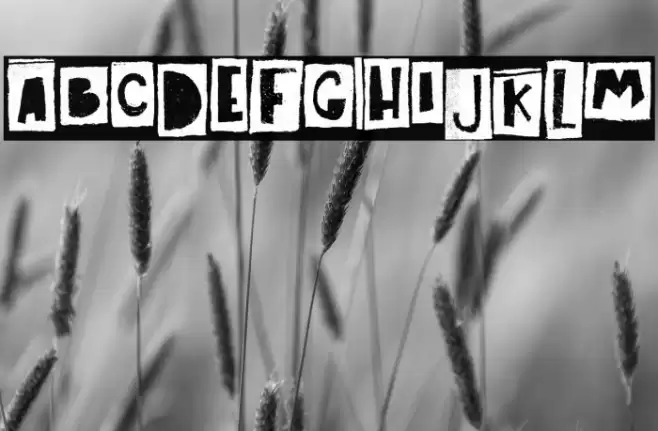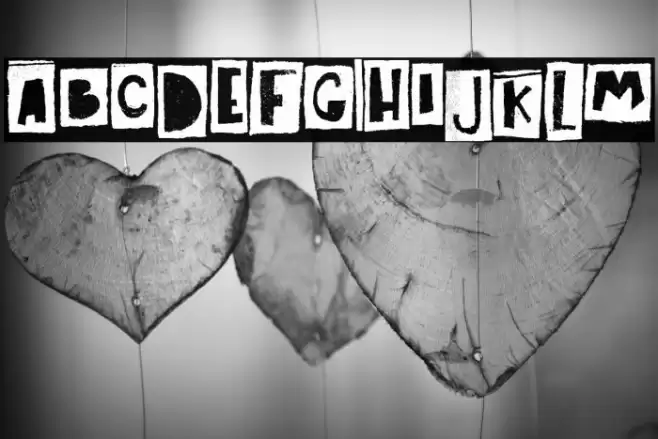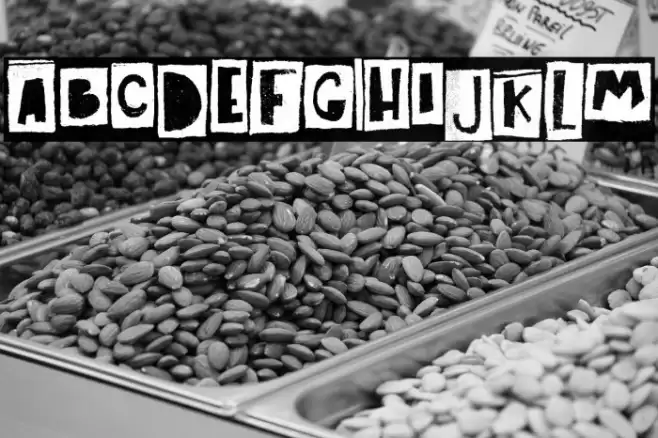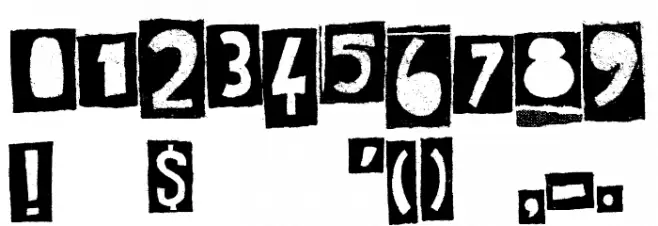
Art Post Font
Art Post Description
This font features a bold, distressed style with a hand-crafted appearance. Each character is enclosed in a rough, uneven block, giving it a unique, cut-out look reminiscent of vintage ransom notes or DIY zines. The letters and numbers exhibit a playful, irregular form, with varying levels of texture and shading that enhance its rugged aesthetic. The overall design is bold and eye-catching, making it suitable for projects that require a strong visual impact. The font's distinctive style is ideal for creative and artistic applications, where a sense of individuality and character is desired.
A bold, distressed font with a hand-crafted, cut-out appearance from Uncategorized fonts.
- Font: Art Post
- Proposed Projects: Ideal for posters, album covers, DIY zines, and creative branding projects.
- Overall Style: Vintage, Artistic